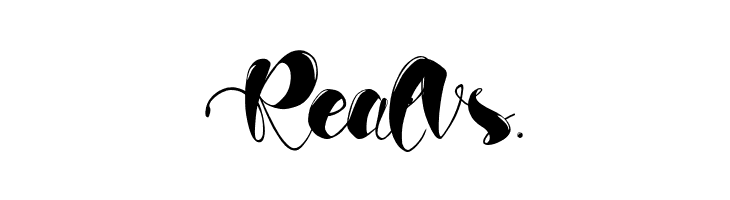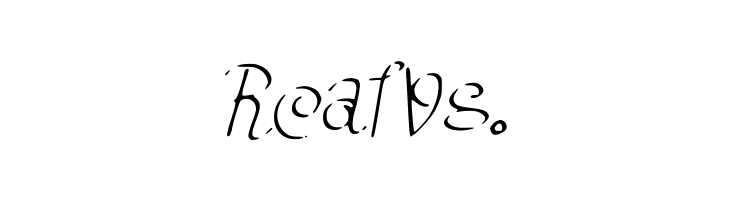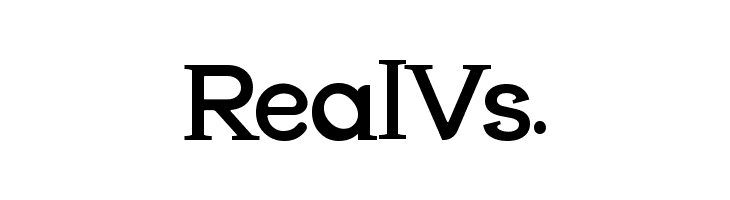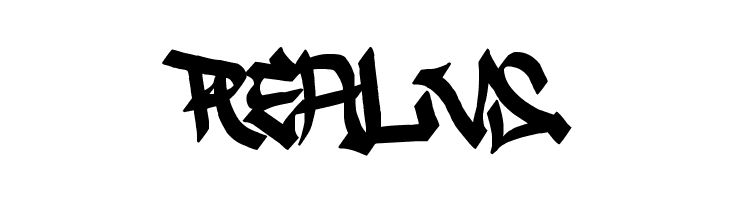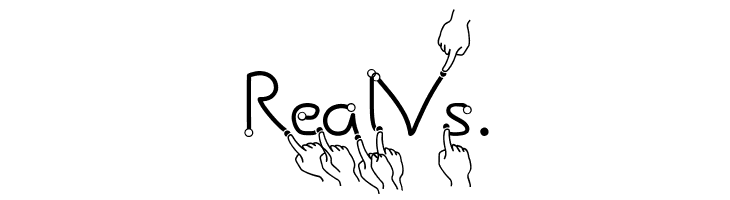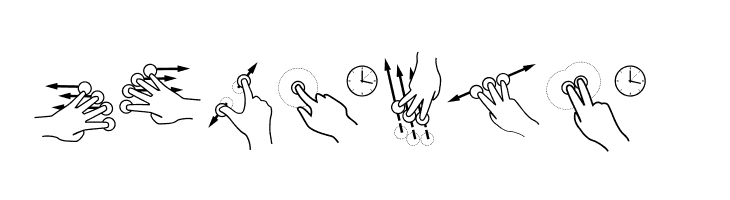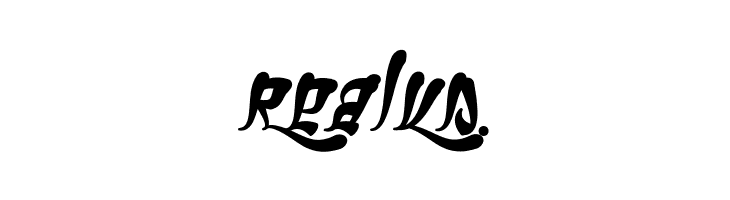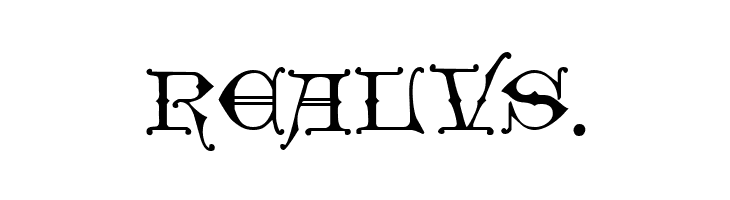
A whimsical, hand-drawn font with playful, quirky elements and spiral motifs.
A bold, playful font with a quirky, hand-drawn style.
A playful, hand-drawn font with a textured, artistic style.
A playful, hand-drawn font with a textured, sketch-like appearance.
A delicate, flowing script font with elegant, elongated letterforms.
A lively cursive font with a fluid, handwritten style.
A geometric, modern font with clean lines and a minimalist aesthetic.
A modern, rounded font with a geometric structure and friendly appearance.
A geometric, minimalist font with thin lines and a modern, futuristic style.
A geometric and modern font with a clean, futuristic design.
A geometric, extra-light font with a minimalist and modern design.
A geometric and modern font with a futuristic design and clean lines.
A fluid, handwritten script font with elegant, connected letters.
Bold, italicized font with outlined, three-dimensional characters.
A playful, hand-drawn font with a whimsical and informal style.
A bold, geometric font with outlined characters and a modern flair.
A bold, flowing script font with decorative flourishes and cohesive design.
A flowing cursive font with a handwritten, elegant style.
A dynamic handwritten font with expressive, flowing letterforms.
A modern, geometric font with clean lines and a structured appearance.
A fluid, cursive script font with elegant, connected letters.
A graceful script font with flowing, connected strokes and elegant curves.
A fluid and elegant script font with smooth, flowing lines and cursive letterforms.
A bold, geometric font with a three-dimensional layered outline.
A bold, decorative Blackletter-style font with intricate details.